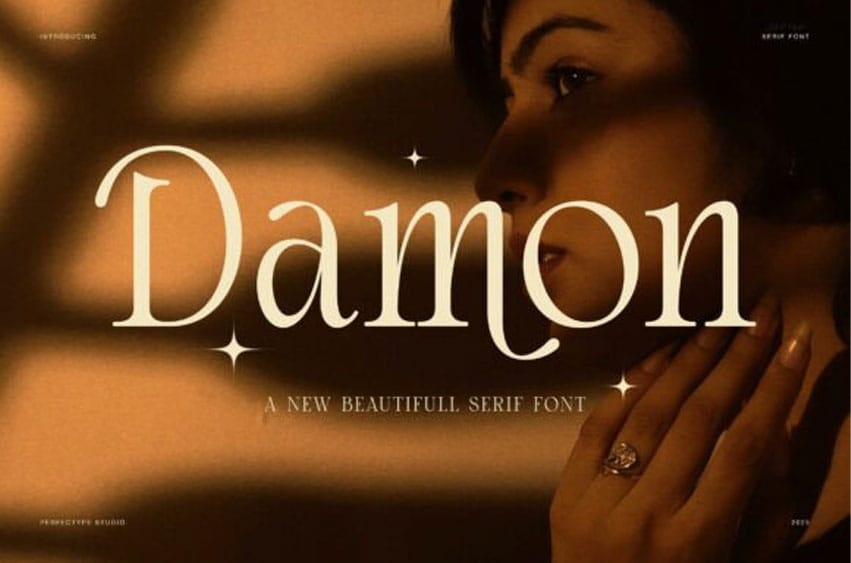
Damon Font is an elegant serif font created to bring timeless beauty and artistic character to your design projects. Each curve, serif, and stroke carries a sense of refinement that blends modern minimalism with classic sophistication. This typeface feels luxurious, yet approachable—making it perfect for both digital and print design.
Because of its graceful details, Damon Serif Font works beautifully across a variety of creative uses. It enhances brand identity, packaging, and editorial layouts while maintaining readability and balance. Moreover, its high contrast and smooth rhythm create a stylish look that instantly attracts attention.